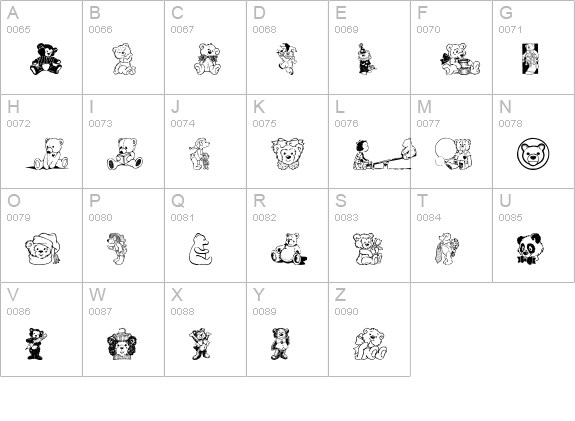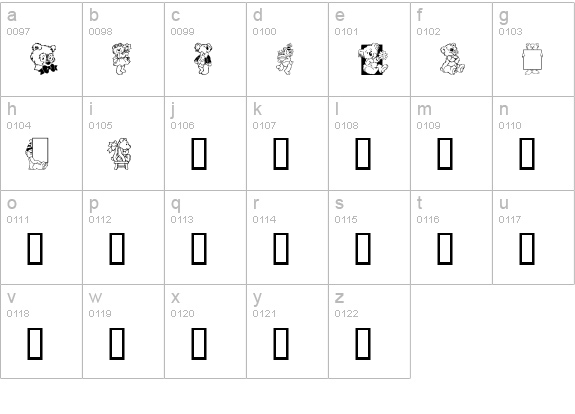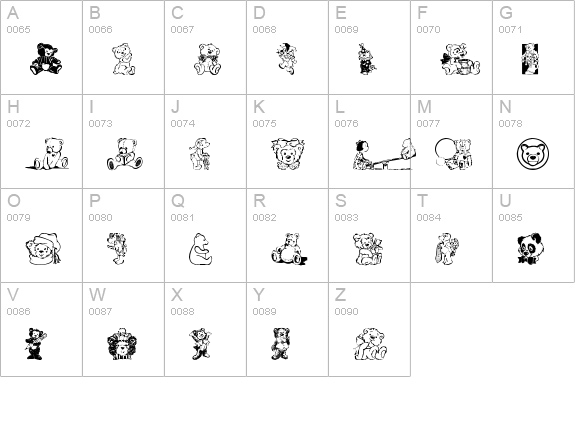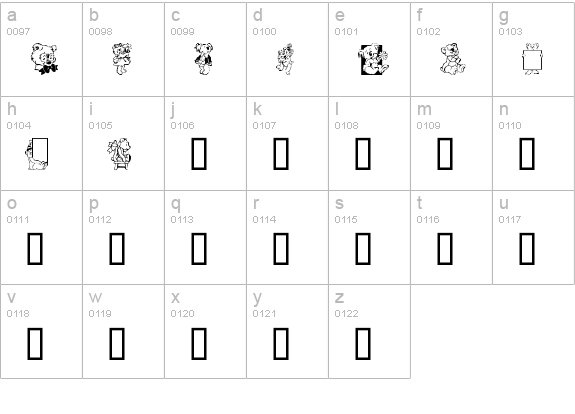
Teddybers Too Font Details
Introducing Teddybers Too, a captivating and versatile font that will add a touch of whimsy to any design project. This enchanting typeface boasts a delightful blend of playful curves and elegant lines, making it the perfect choice for everything from invitations and logos to branding and social media graphics. Teddybers Too is designed to evoke a sense of warmth, nostalgia, and creativity, making it ideal for projects that require a friendly and approachable feel. With its unique character variations and charming letterforms, this font effortlessly captures attention and leaves a lasting impression. But what makes Teddybers Too even more extraordinary is the fact that it is available for free! Yes, you heard it right. This remarkable font can be freely downloaded at FontsMarket.com, ensuring that everyone has access to its captivating charm and creative potential. Whether you're a professional designer or a creative enthusiast, Teddybers Too offers an opportunity to elevate your designs without breaking the bank. With Teddybers Too, you can effortlessly infuse your projects with a touch of magic and personality. Its versatility allows you to explore endless design possibilities, from children's books and illustrations to branding and packaging. So why wait? Embrace the whimsical appeal of Teddybers Too and let it inspire your next creative endeavor. Download this remarkable font for free at FontsMarket.com and unleash the magic of typography in your designs today!